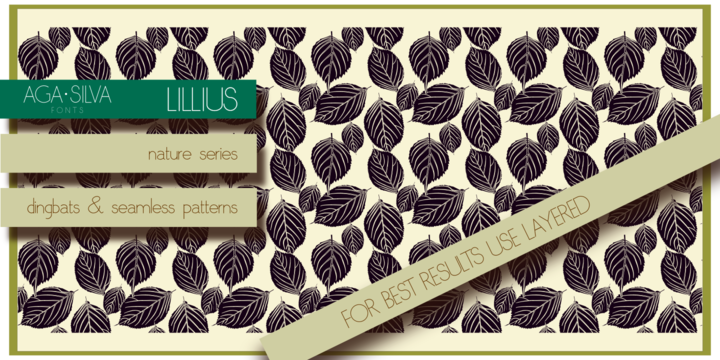
This font contains images in two variants, that is: tiles (seamless, endless) and dingbats showing plants, leaves, blooms, frogs, butterflies and ants.
Lillius